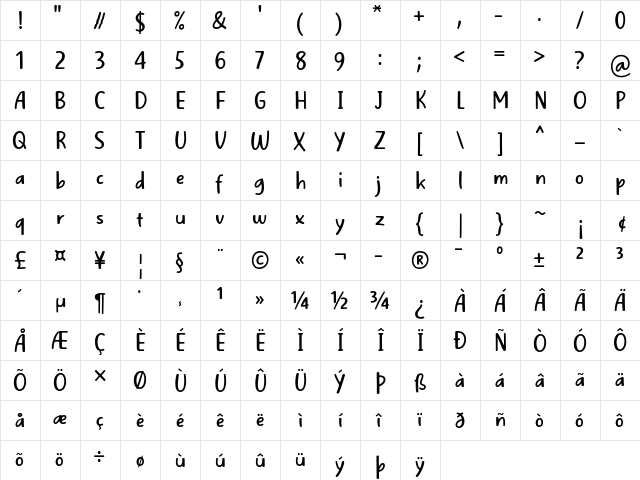
Well Bred Regular
| Foundry | 7NTypes |
| Designer | Situjuh Nazara |
Design Context for Well Bred Typeface
Well Bred is a composed and adaptable typeface that performs quietly and consistently across a wide range of design contexts.